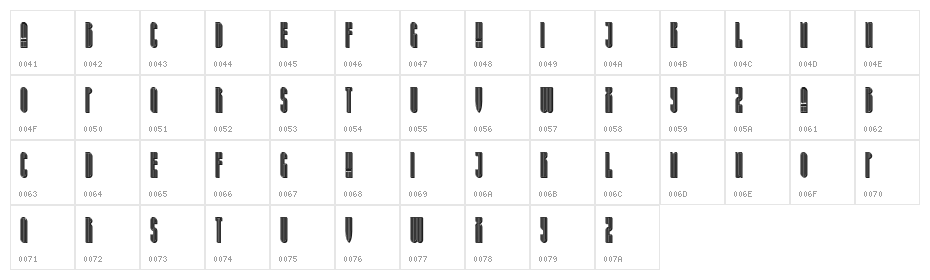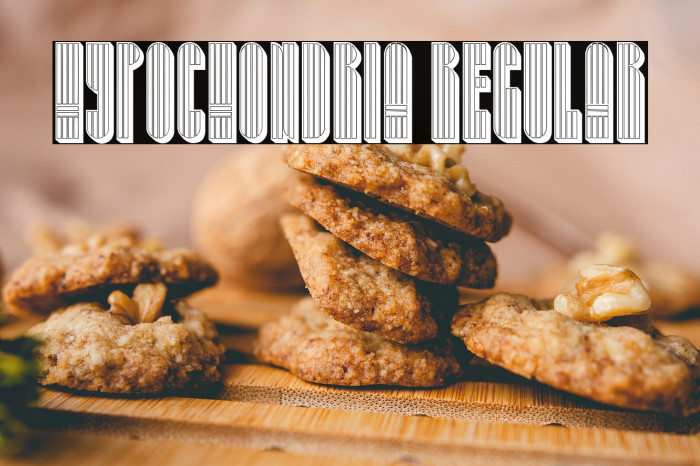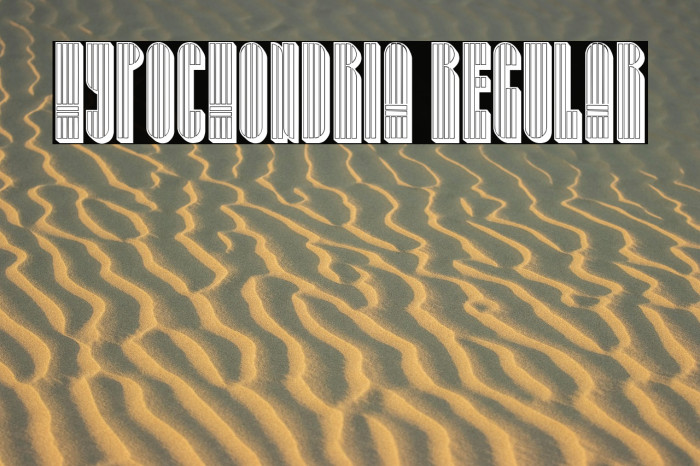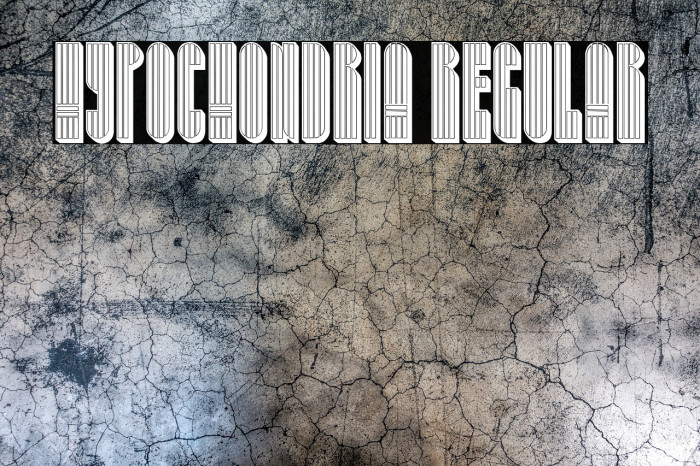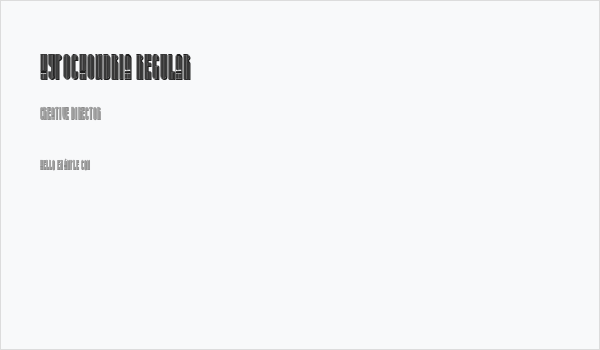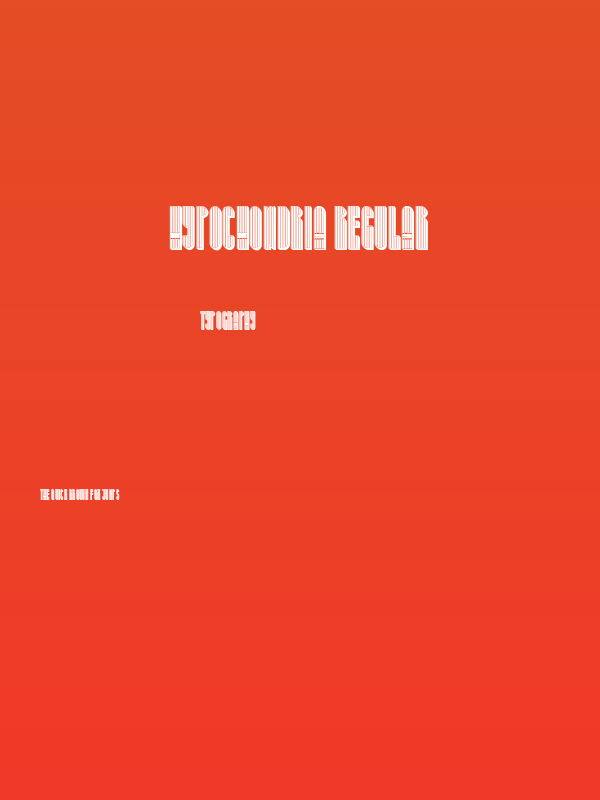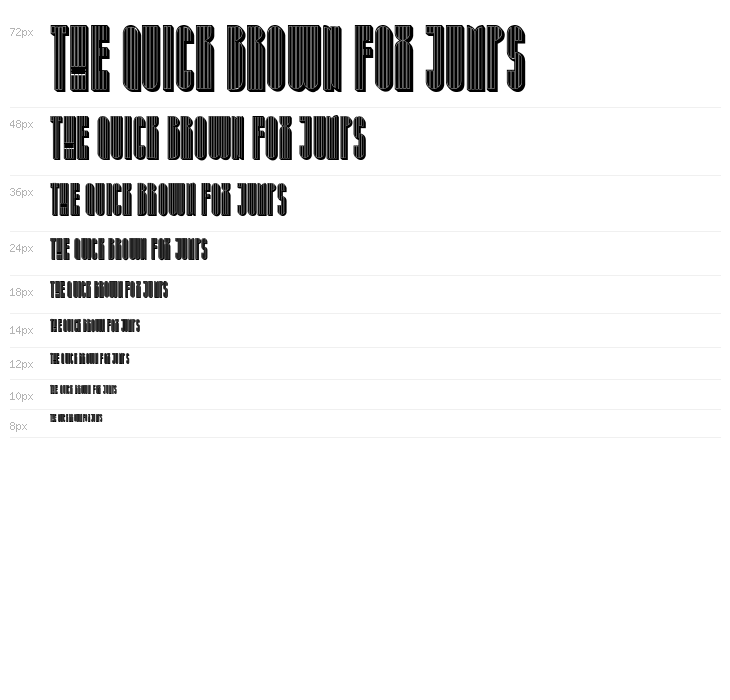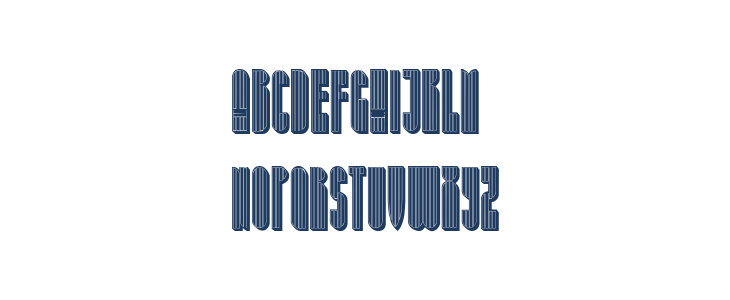
Hypochondria Regular Font
Hypochondria Regular Description
This font features a bold and striking design with a distinct vertical line pattern running through each character, creating a sense of movement and rhythm. The letters are tall and narrow, giving a condensed appearance that is both modern and eye-catching. The geometric shapes and clean lines contribute to a futuristic aesthetic, making it suitable for projects that require a strong visual impact. The uppercase letters are particularly prominent, with a uniform height that enhances the font's cohesive look. The unique style of this font makes it ideal for creative and artistic applications.
| Proposed Projects | Ideal for posters, album covers, branding, and any project needing a bold, modern touch. |